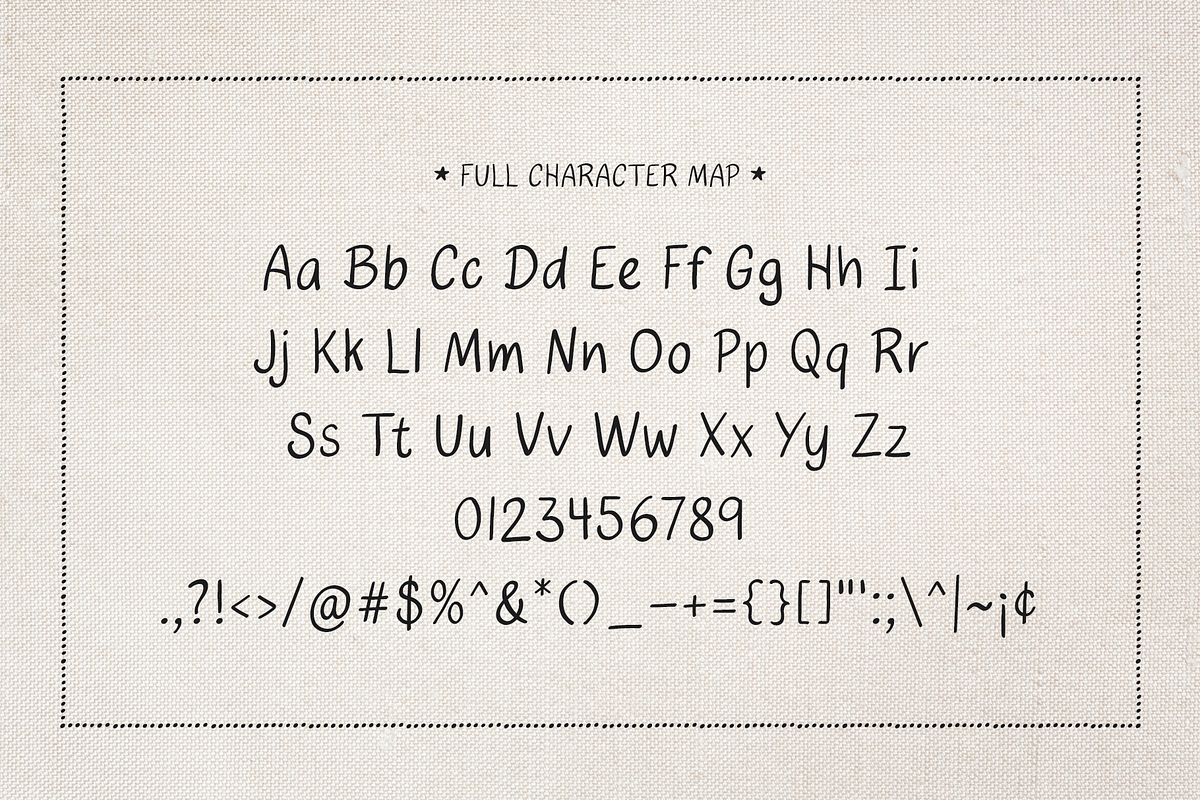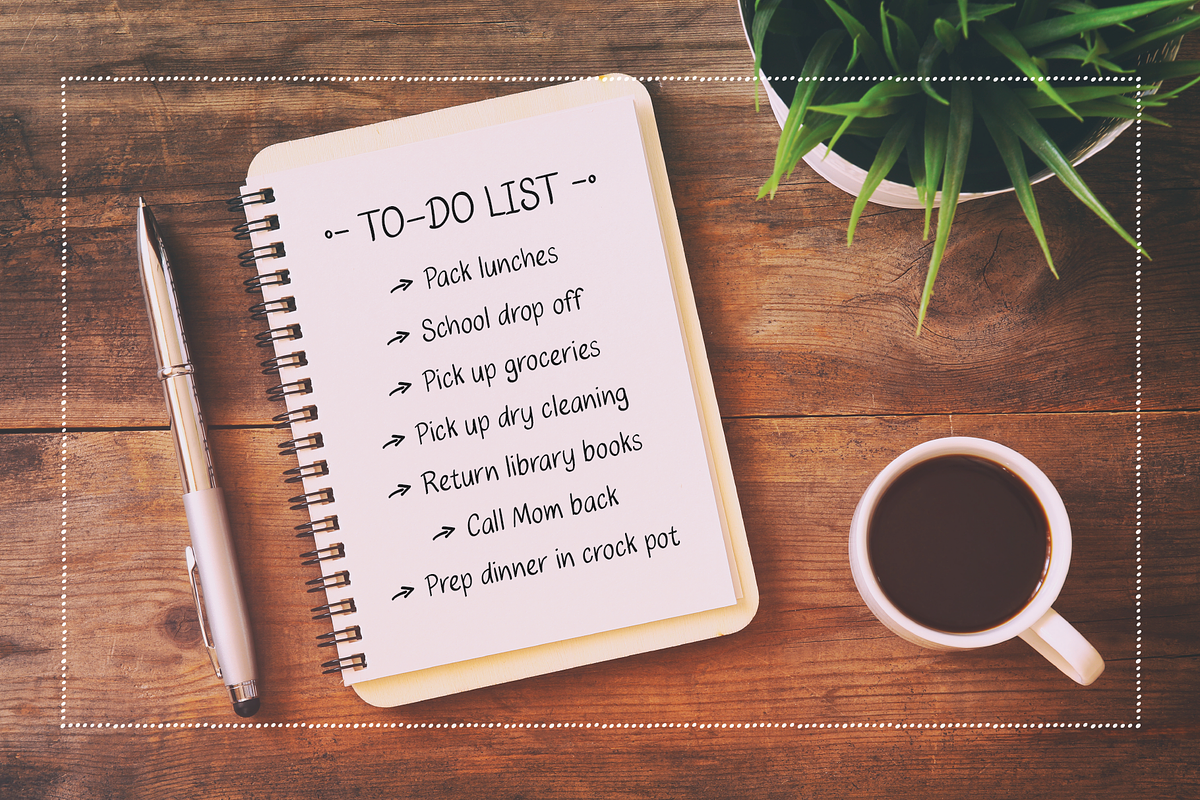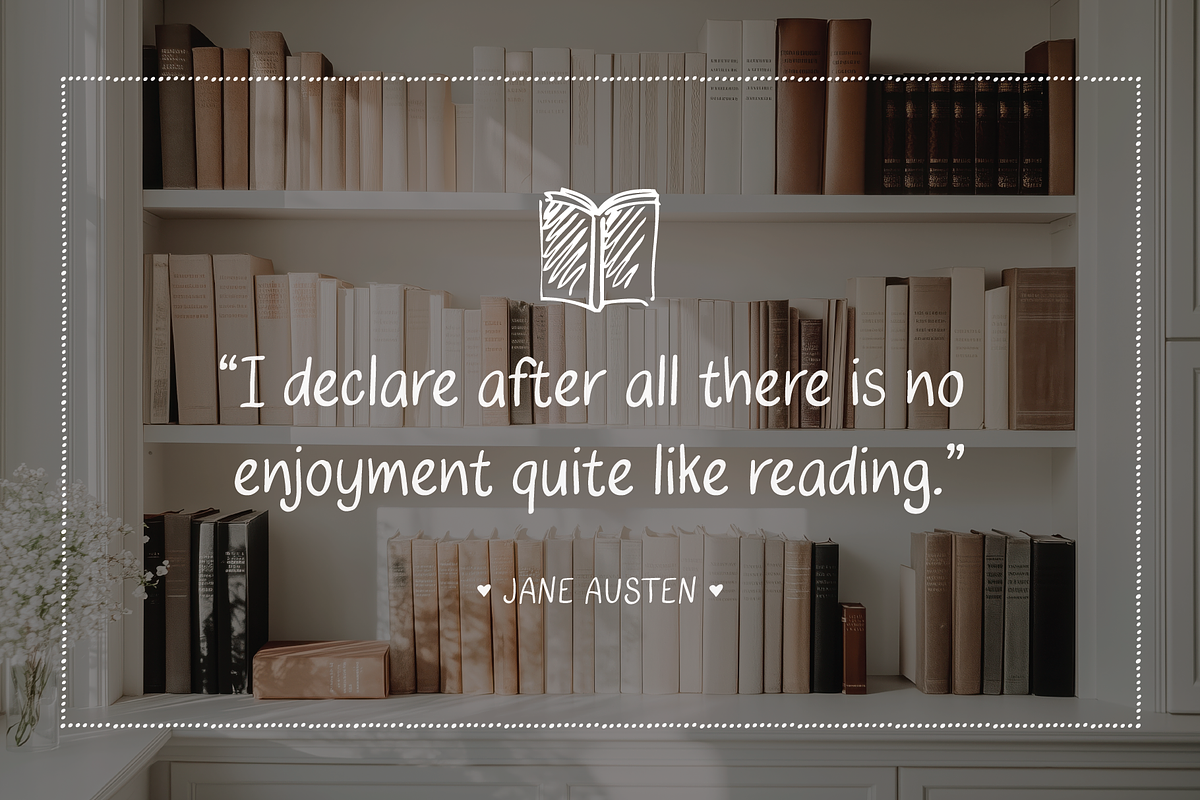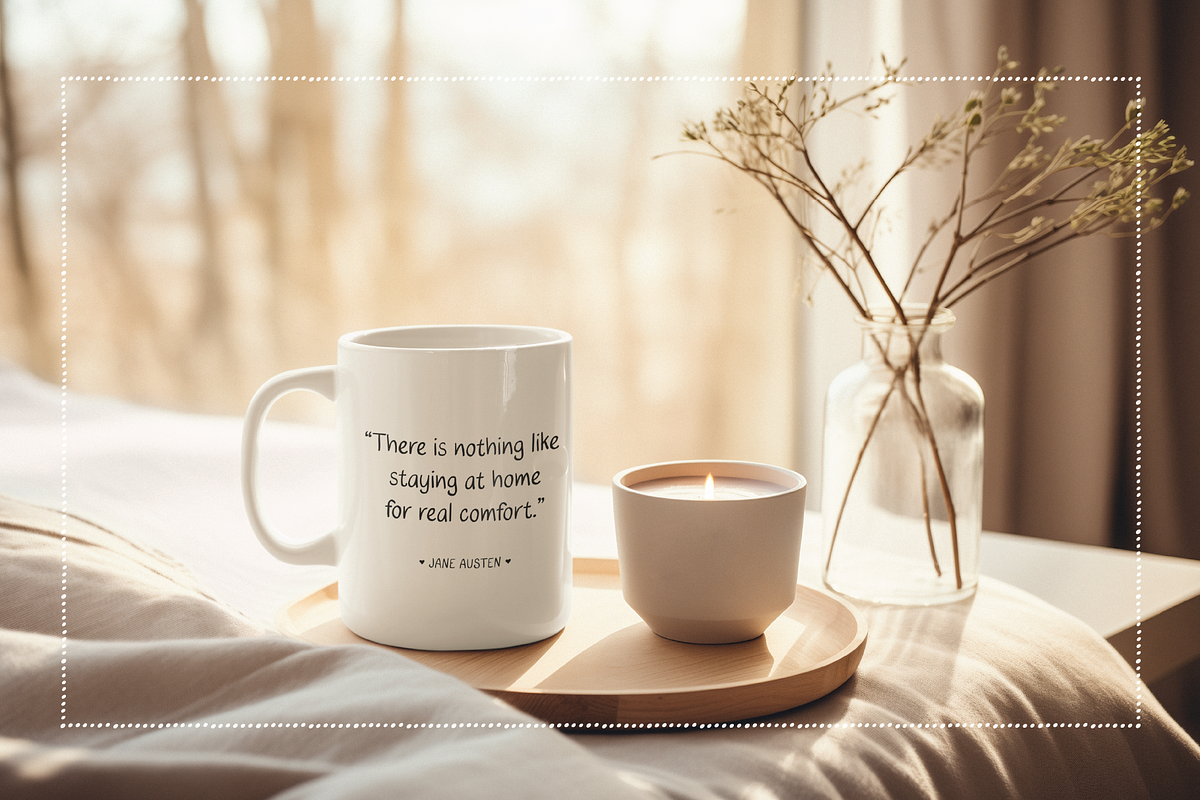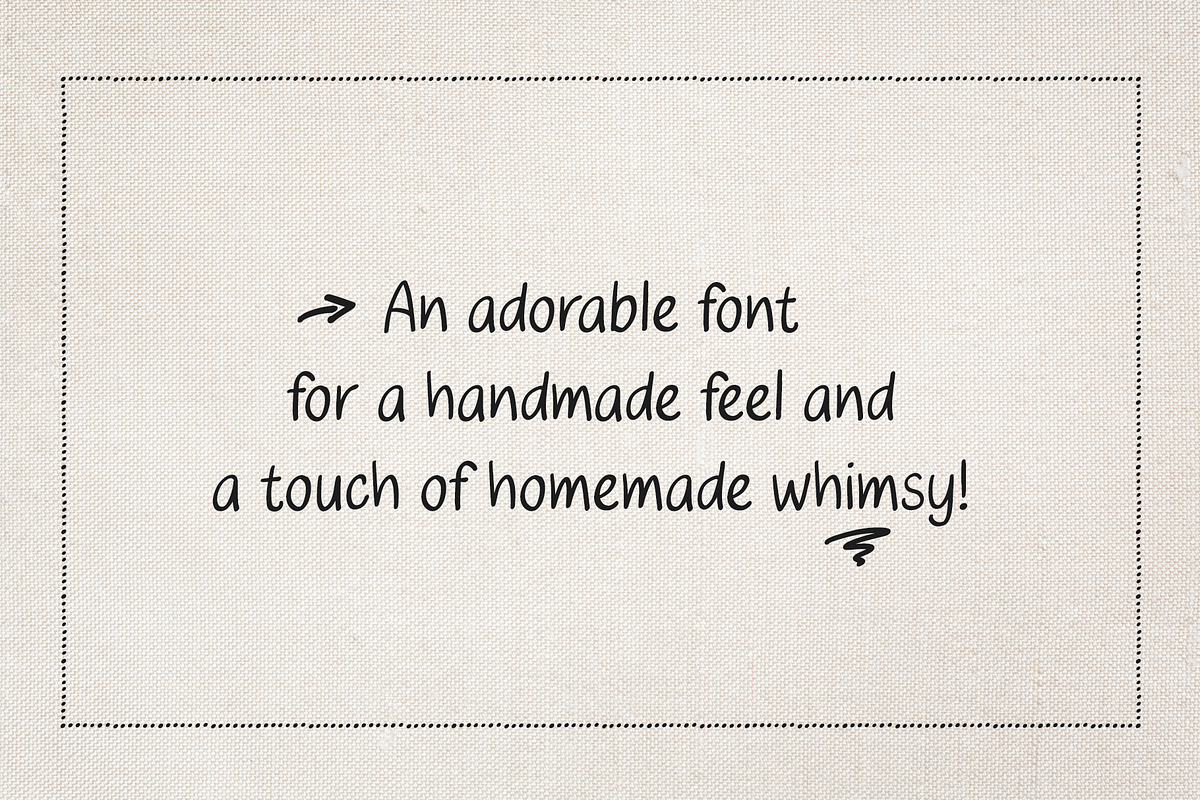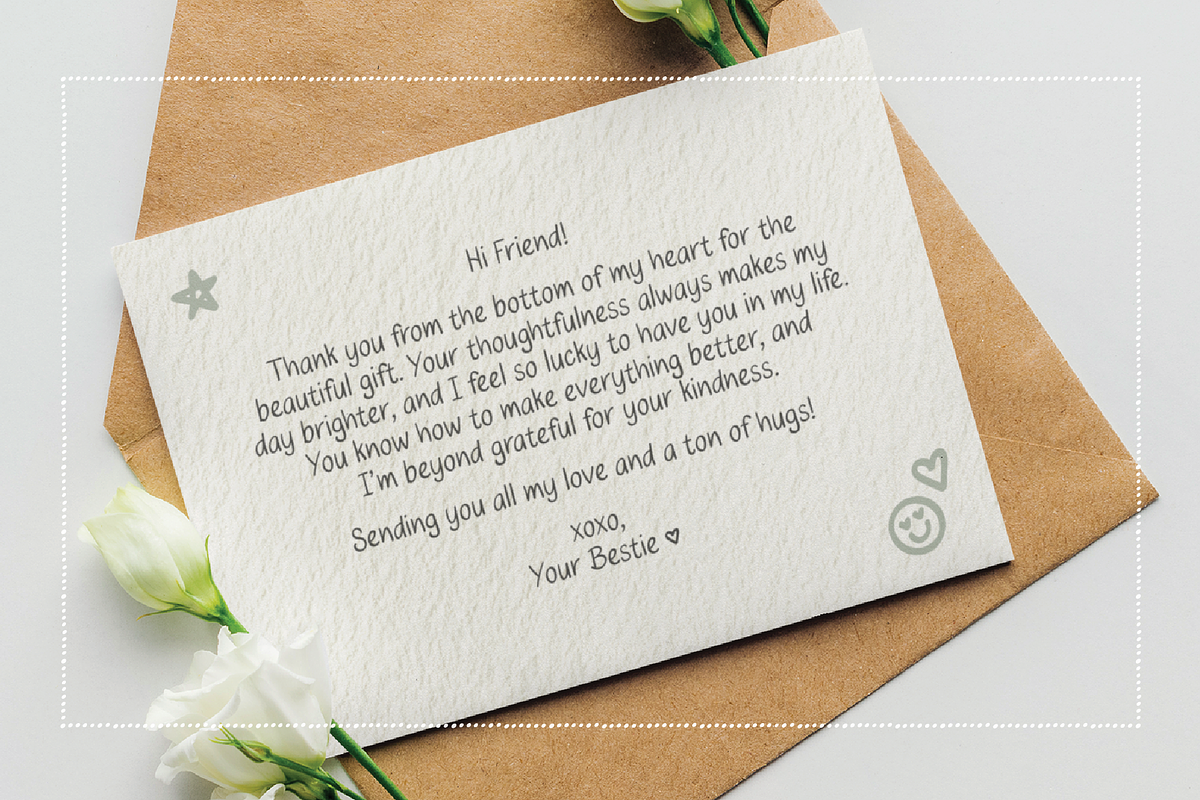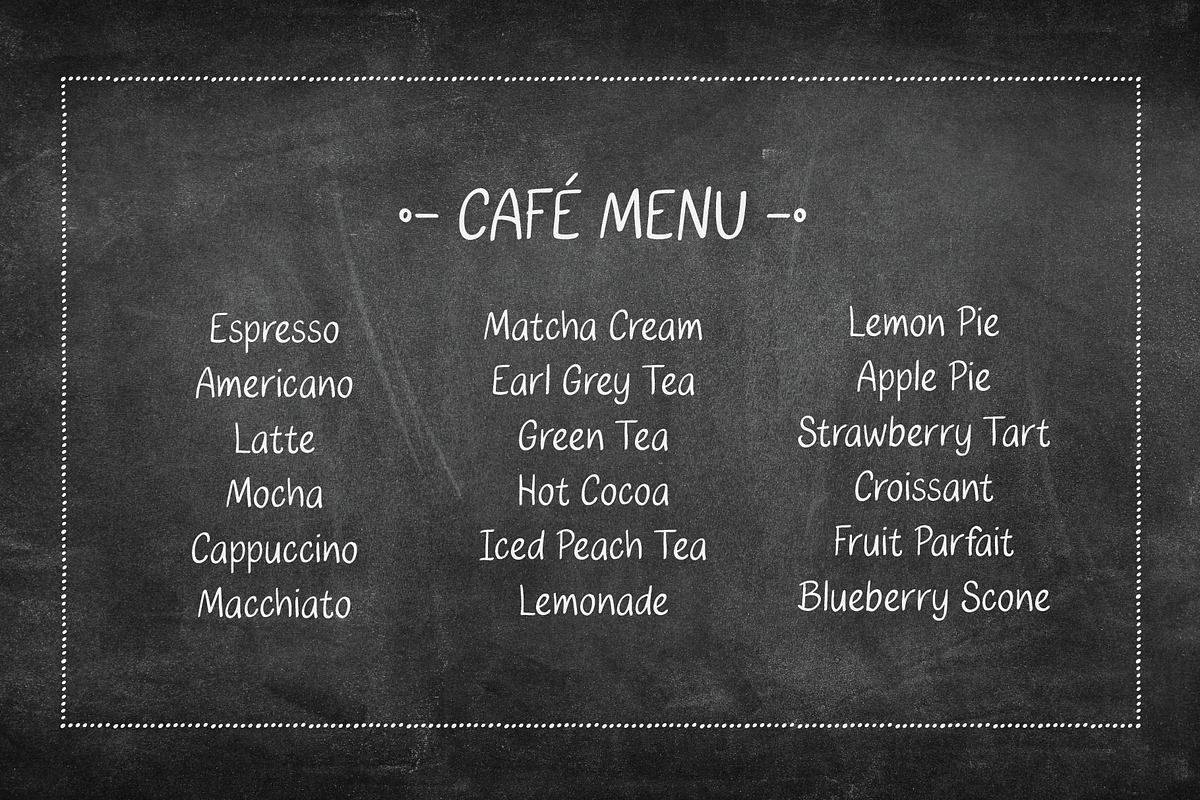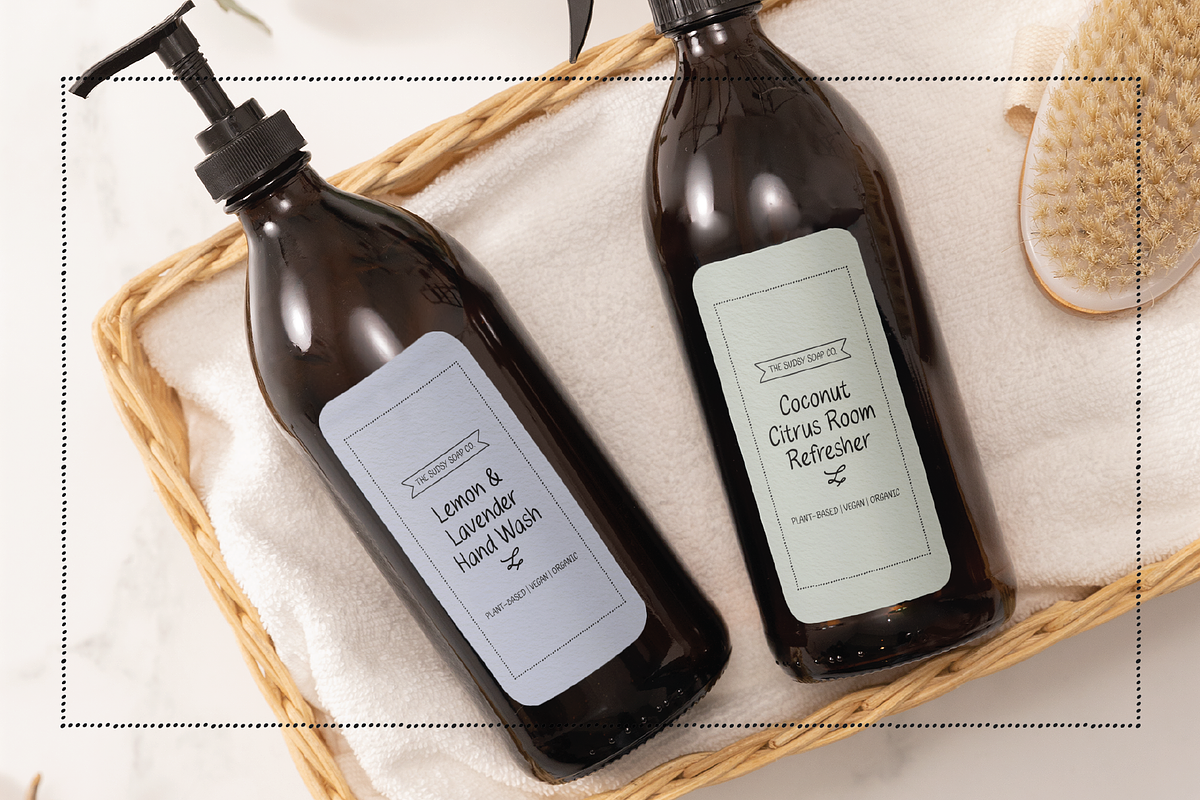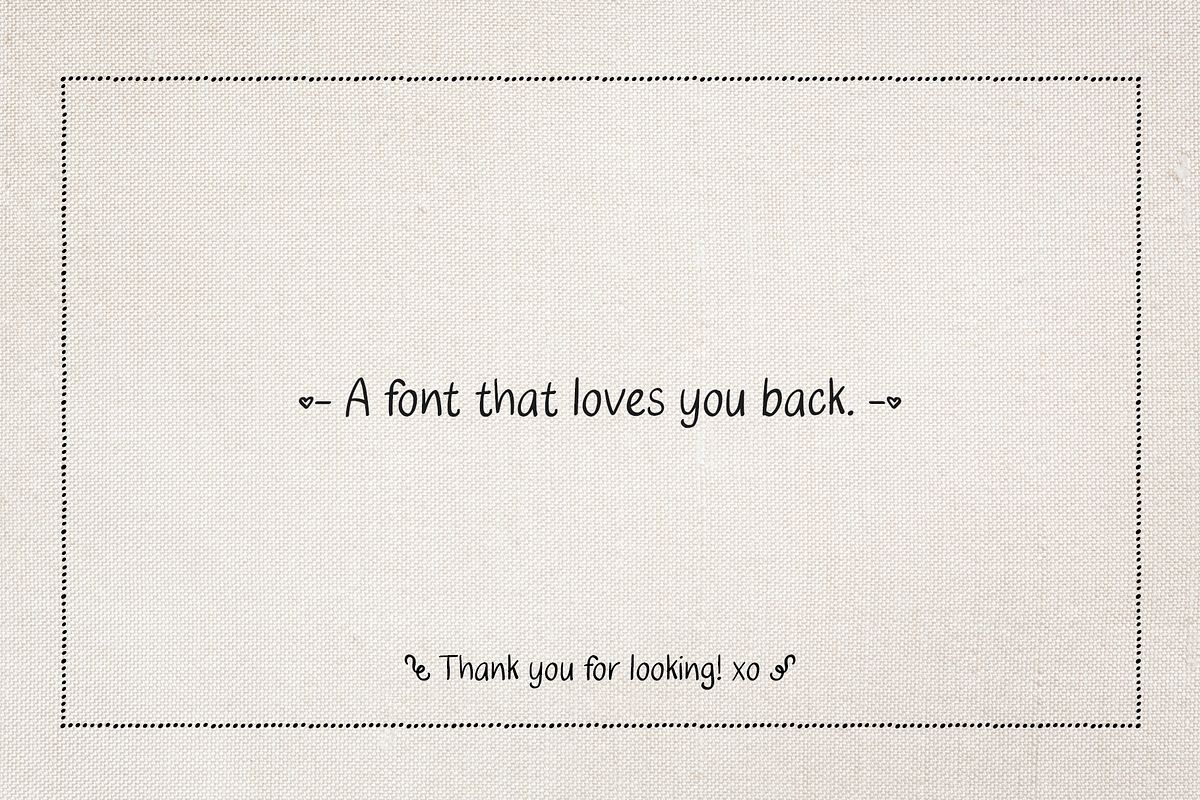
Tender Heart - Handwritten Font
INTRODUCING Tender Heart - Handwritten Font (plus bonus doodles!)
Tender Heart is a perfect blend of charm and personality, bringing a handmade, organic feel to any project. With its cute letterforms and sweet, whimsical design, this font adds a touch of warmth and character to your creative work. This font evokes feelings of joy and sweetness, making it ideal for invitations, greeting cards, home labels, list-making, vision boards, or any project that needs a darling, personal touch.
BONUS! Tender Heart Doodles is included so you can add delightful personal touches to your charming compositions.
- Handwritten Font
- All Standard Characters (Uppercase + Lowercase, Numerals, Punctuation)
- Multilingual Support: All Latin-Based Languages